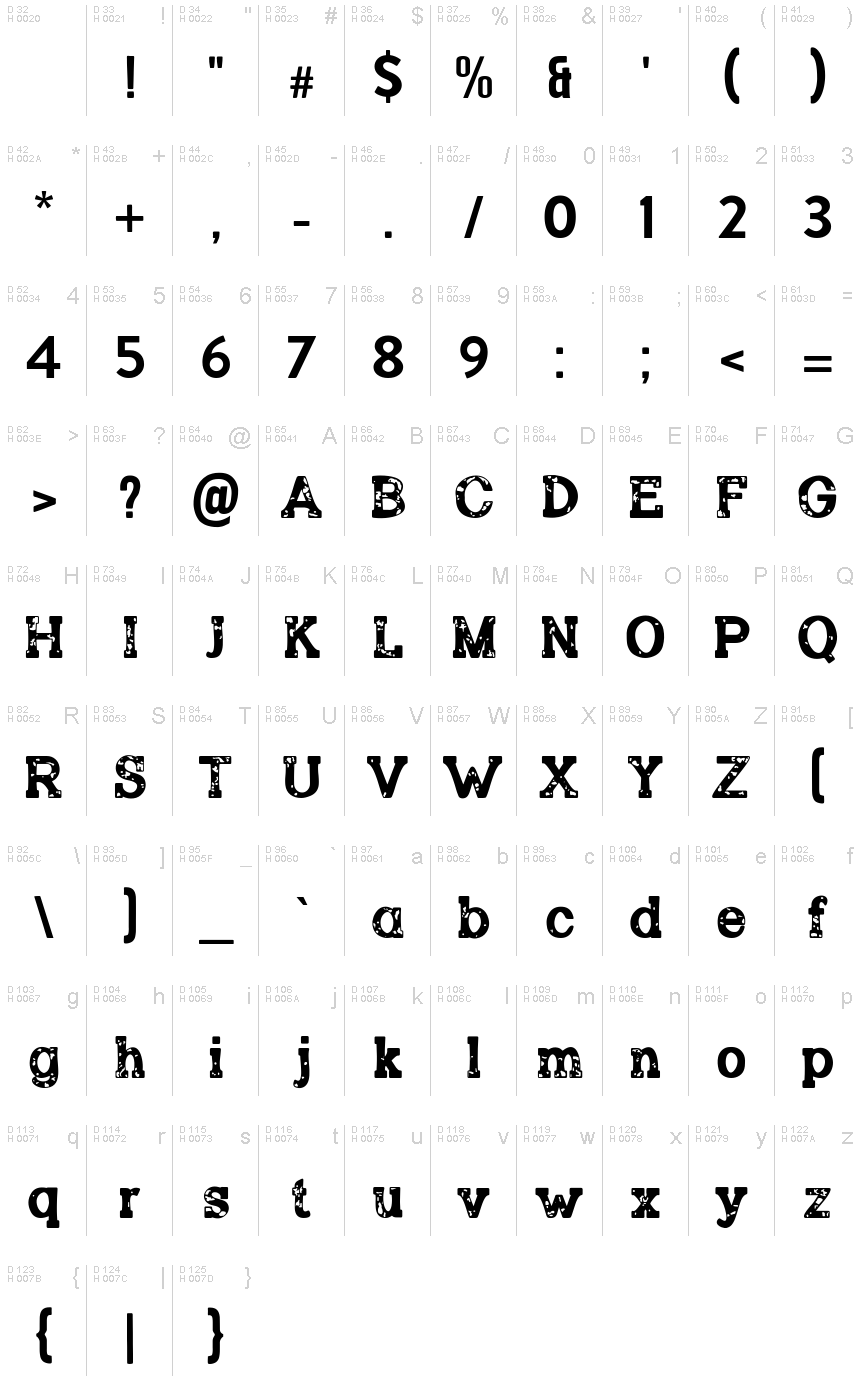
PresidiumScriptTypeface
Presidium Script Typeface, a captivating creation by UI Creative, exudes a sense of weathered elegance. Its eroded aesthetic, with a captivating balance of sharp edges and soft curves, evokes a timeless, vintage-inspired charm. The typeface's imperfect, handcrafted appearance lends an organic, artisanal quality, evoking feelings of authenticity and character.
This versatile font shines in a variety of design applications, from rustic wedding invitations and boutique product packaging to vintage-inspired editorial layouts and creative branding. Presidium Script's unique character and personality make it a compelling choice for projects seeking to convey a sense of heritage, craftsmanship, or a touch of nostalgic allure.